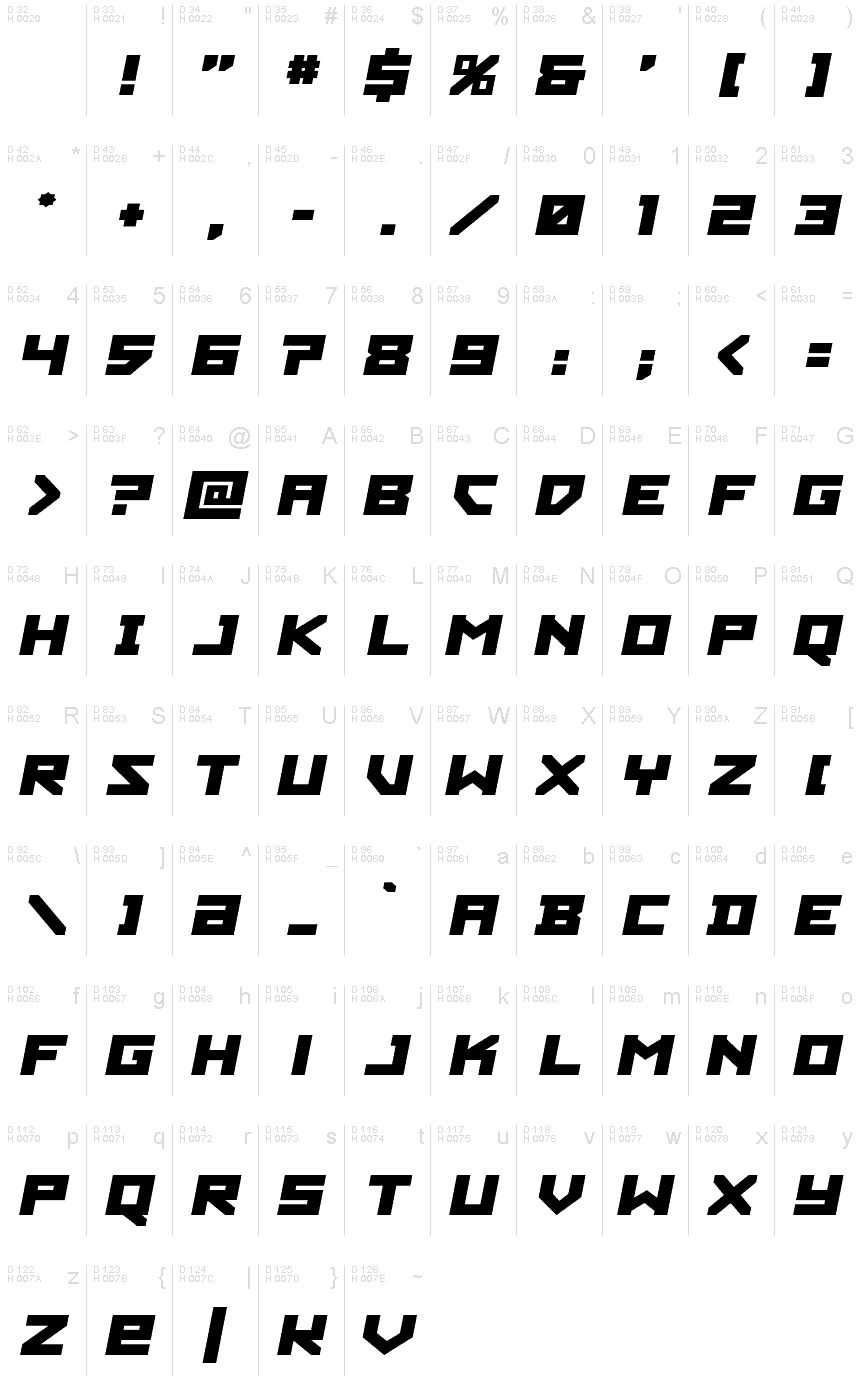
Hibernal Sentry Expanded Ital
This new addition to our collection of free fonts is a font for the strong. Hibernal Sentry is a font family with a techno aesthetic inspired by the old metal bands of the 80s which, in turn, get their inspiration from futuristic literature and movie art. This style gets transferred through the geometric design with its smooth angular corners which, when used in all caps, can give a futuristic/sci-fi touch to video game and movie titles.
We’re offering a free expanded oblique style in case you want to add a bit more style to your projects. Use Hibernal Sentry for branding, packaging design, poster headlines, logo design, etc. For example, you can use it to create a futuristic, sci-fi magazine cover featuring a retro-futuristic theme.